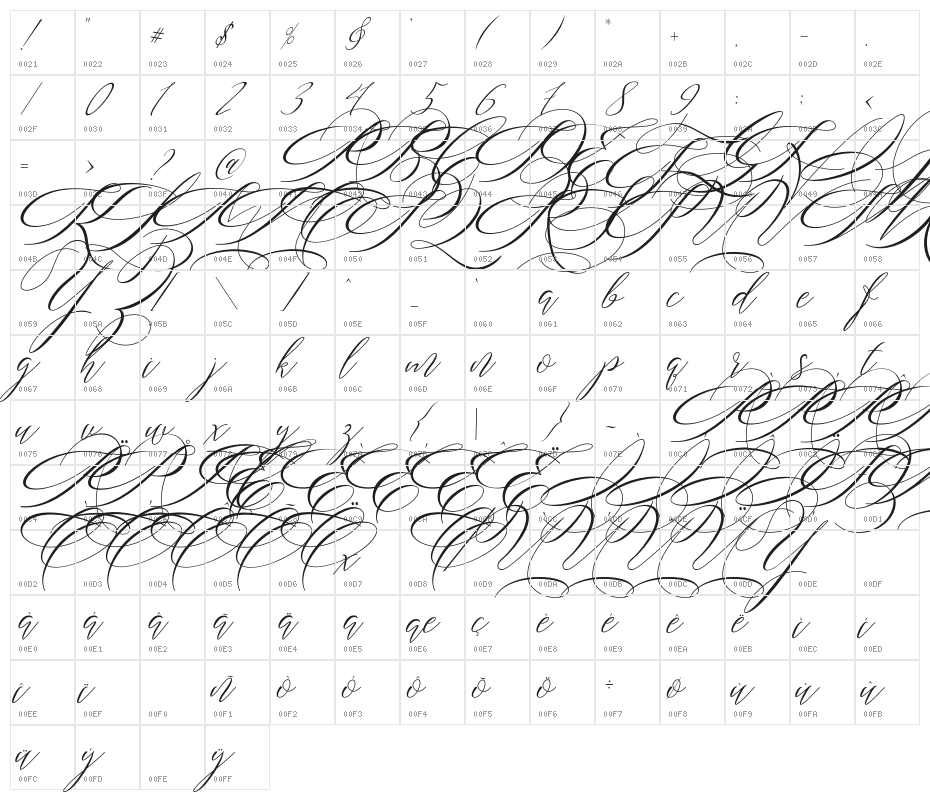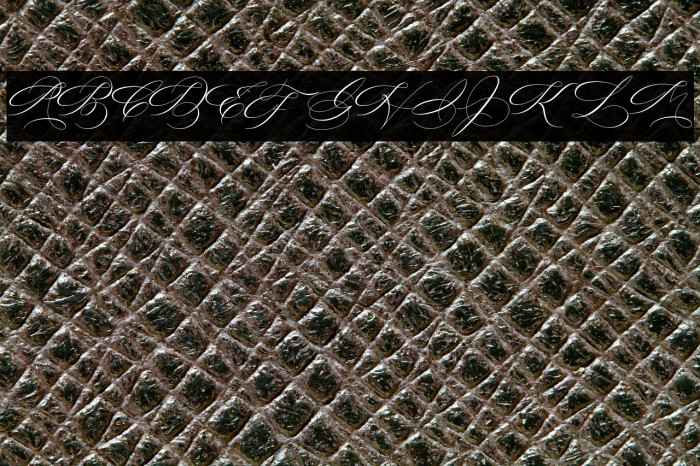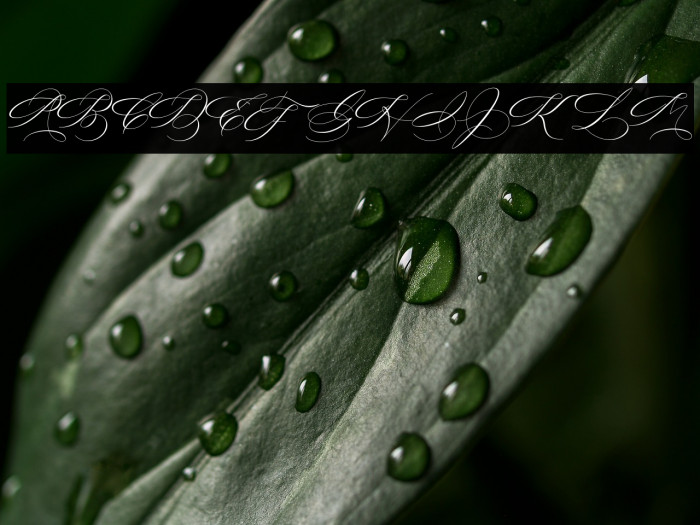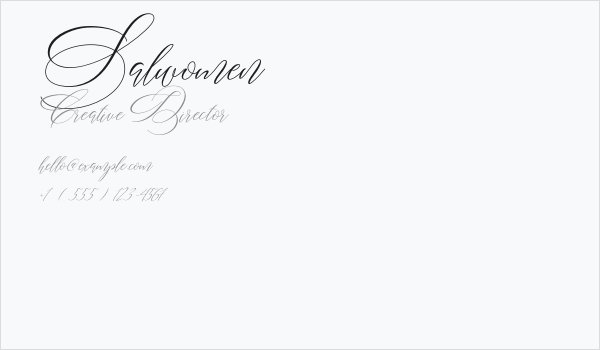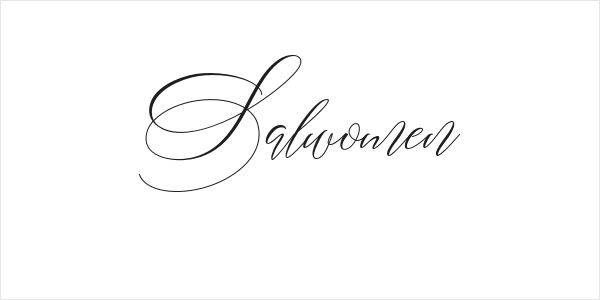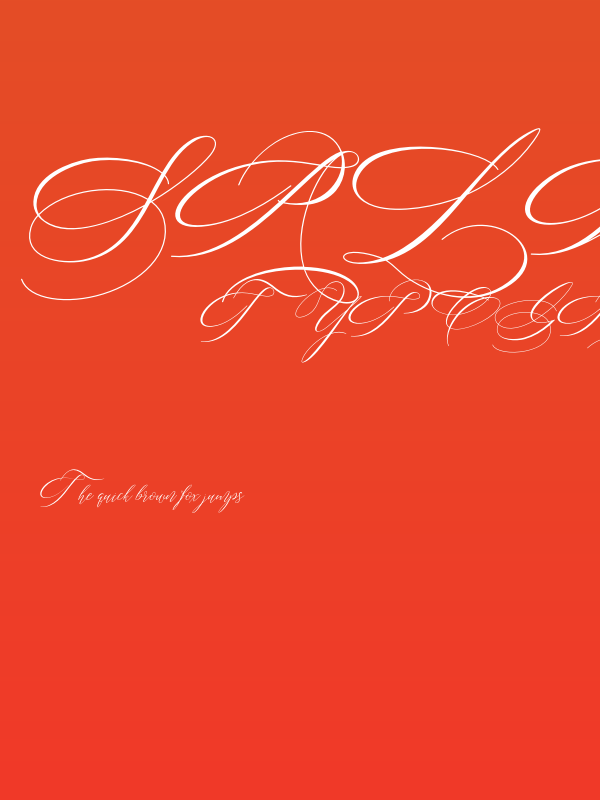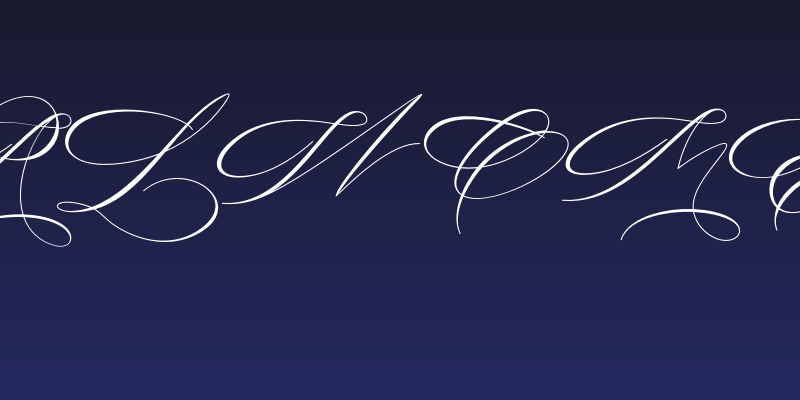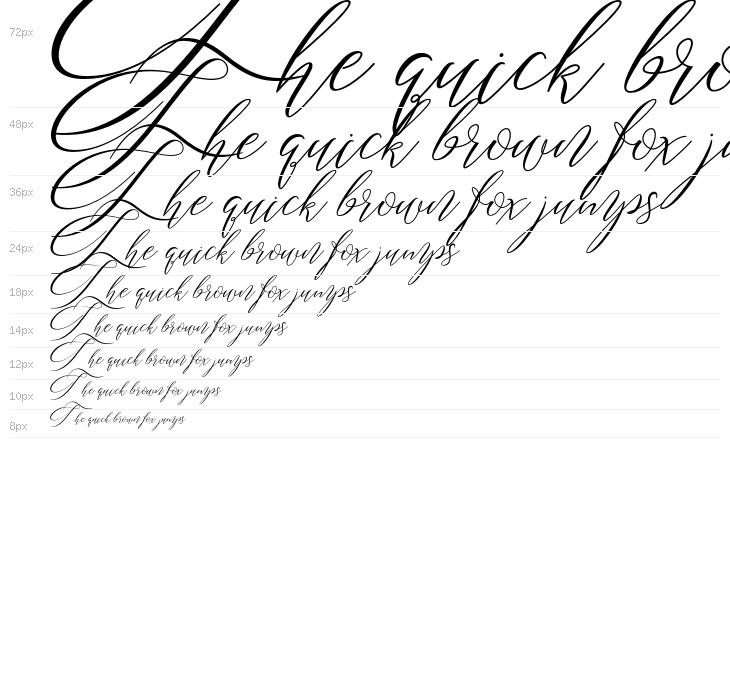
Salwomen Font
Salwomen Description
This elegant script font features flowing, interconnected characters with a graceful and sophisticated appearance. The uppercase letters are adorned with intricate swashes and flourishes, adding a touch of luxury and refinement. The lowercase letters maintain a consistent slant, enhancing the fluidity and continuity of the text. The numerals and special characters are designed to complement the overall style, with a harmonious balance between the bold strokes and delicate curves. This font exudes a sense of elegance and charm, making it ideal for projects that require a touch of class and sophistication.